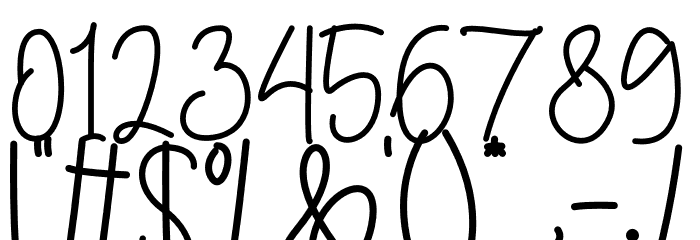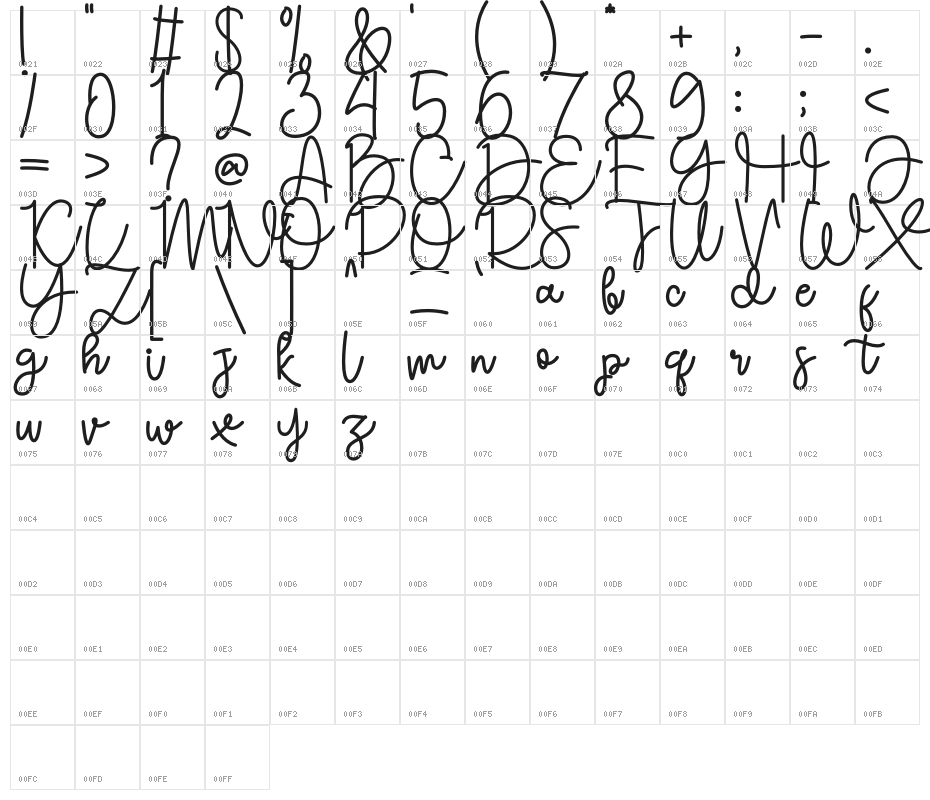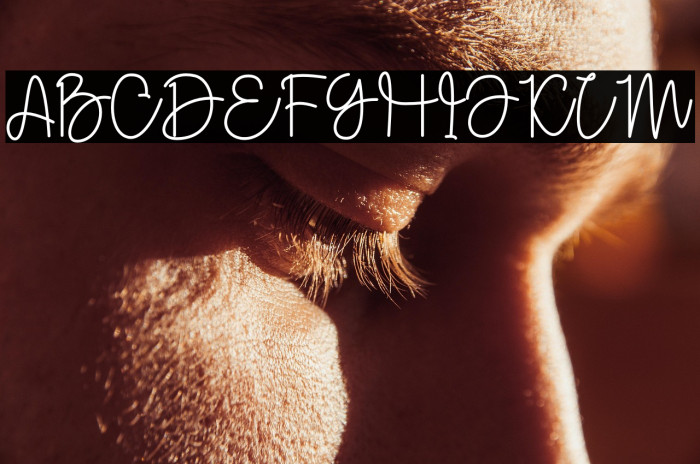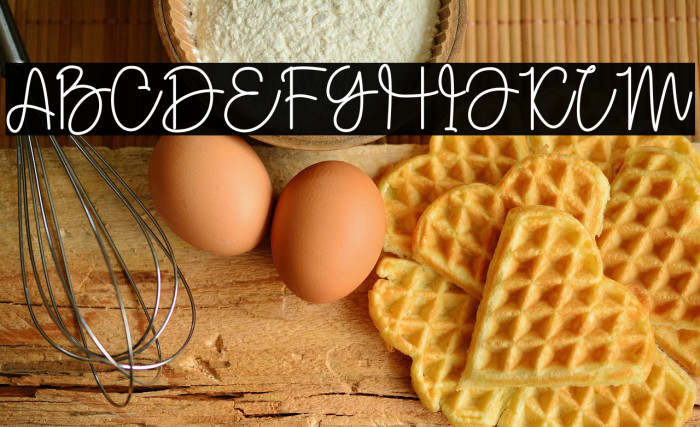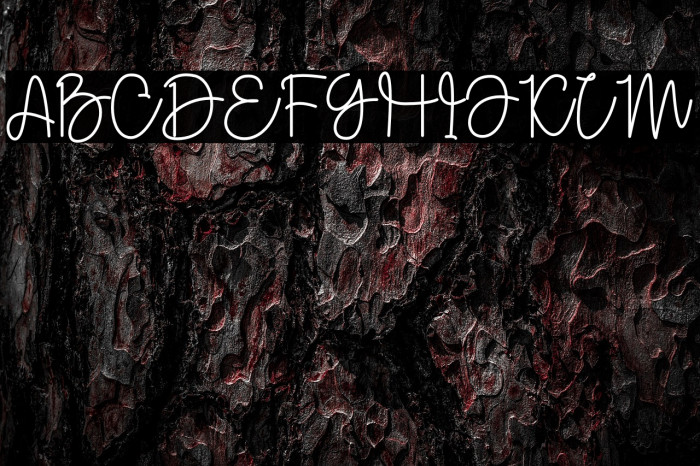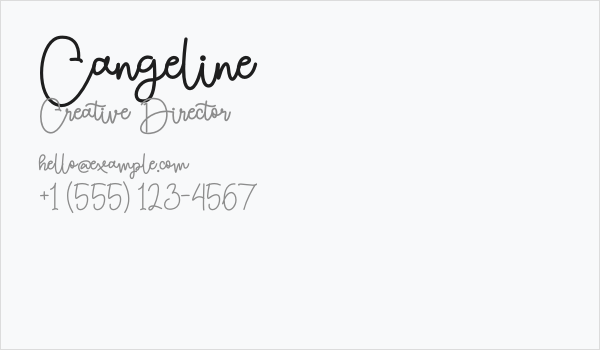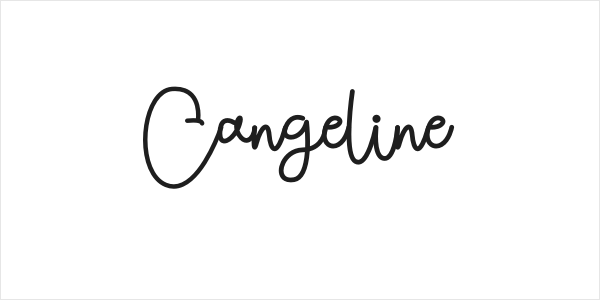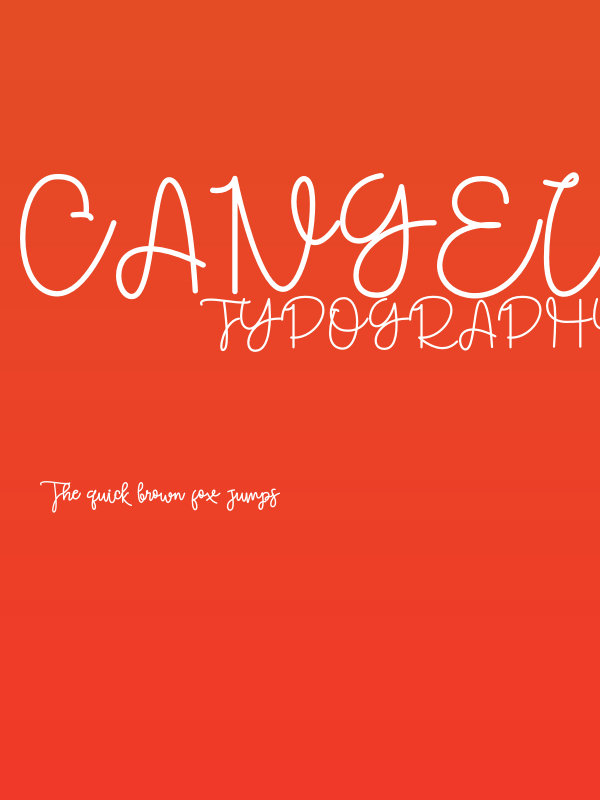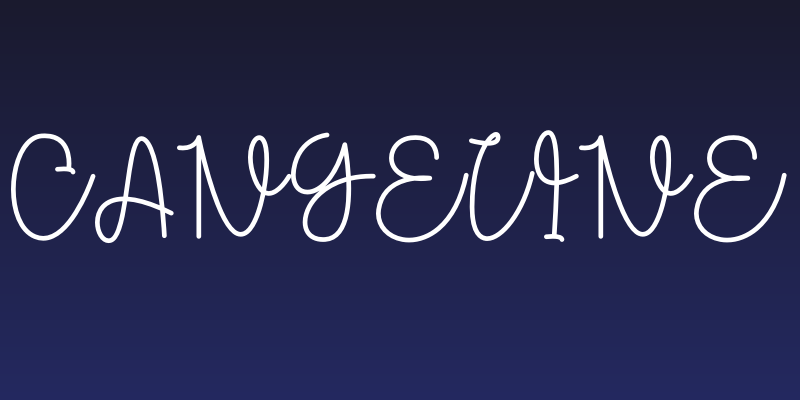
Cangeline Font
Cangeline Description
This font features a playful and flowing script style, characterized by its smooth, continuous strokes and elegant loops. The uppercase letters maintain a consistent height, while the lowercase letters exhibit a charming, handwritten quality with varying heights and slants. The numerals are distinct and easy to read, complementing the overall whimsical aesthetic. Special characters are creatively integrated, enhancing the font's versatility. This font exudes a sense of casual elegance, making it suitable for a variety of creative applications.
| Proposed Projects | Ideal for wedding invitations, greeting cards, personal branding, and creative projects requiring a personal touch. |